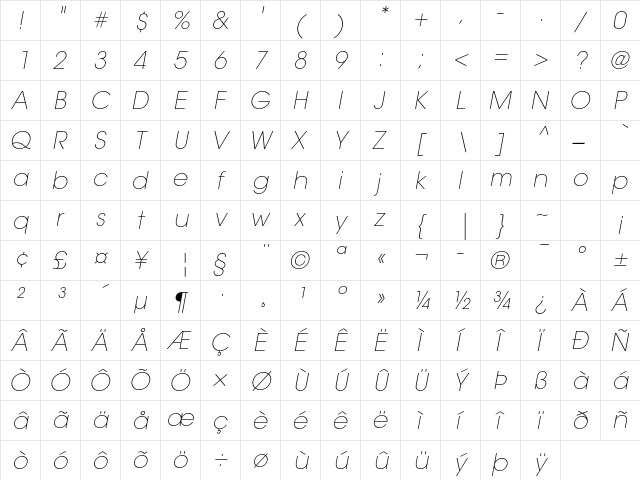
ITC Avant Garde Gothic Std Extra Light Oblique Font Preview
| Style | Extra Light Oblique |
| Designer | Herb Lubalin, Tom Carnase, Ed Benguiat, Adobe Type Staff |
Design Context for ITC Avant Garde Gothic Std Typeface
ITC Avant Garde Gothic Std takes a clean, functional approach — its unadorned letterforms prioritise legibility and work reliably across screen and print environments. The dynamic lean of this cut emphasises speed and emphasis in any layout. Its slender proportions lend an understated elegance to any composition.
A natural fit for high-end product packaging, luxury brand identities, and refined web typography.
Font Pairing: Pair ITC Avant Garde Gothic Std with a medium or bold serif for headlines — the weight contrast creates an elegant, high-end feel.
Pro Tip: Use ITC Avant Garde Gothic Std with generous tracking and line-height for the most luxurious effect — light sans-serifs reward spacious, considered layouts.